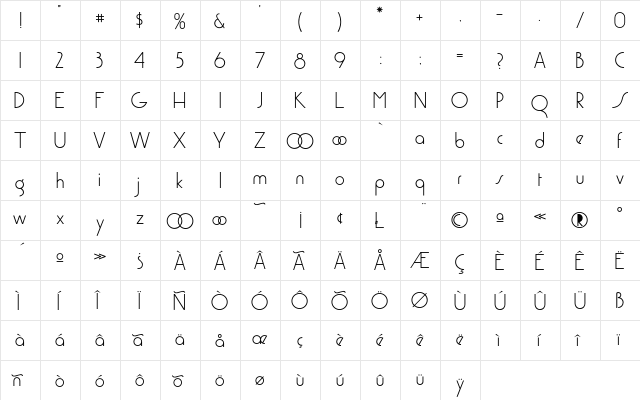
Harpers Regular
Design Context for Harpers Typeface
Harpers takes a measured approach to typography — its balanced proportions and neutral character make it a reliable workhorse for both digital and print work.